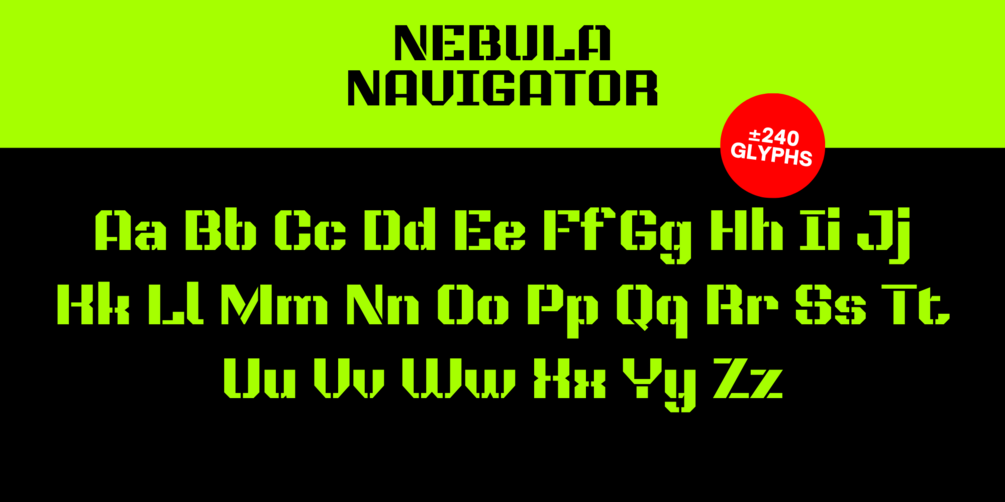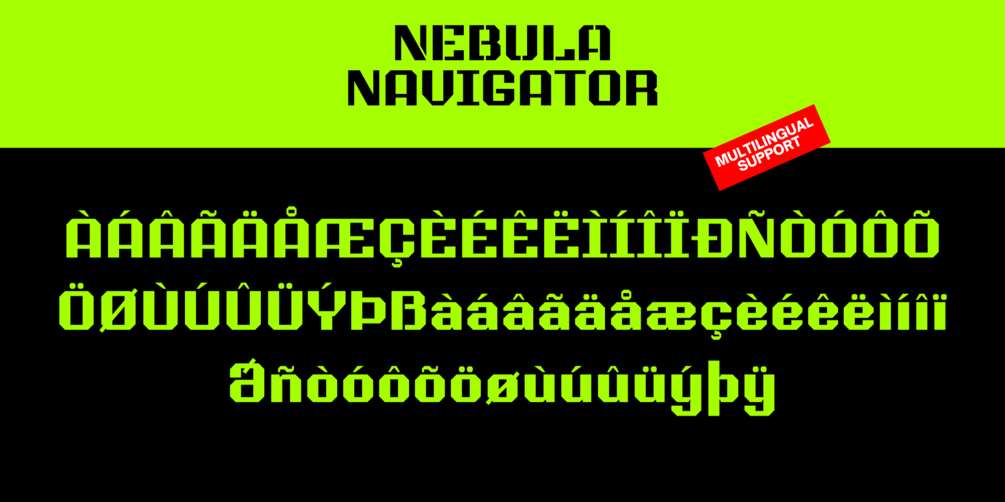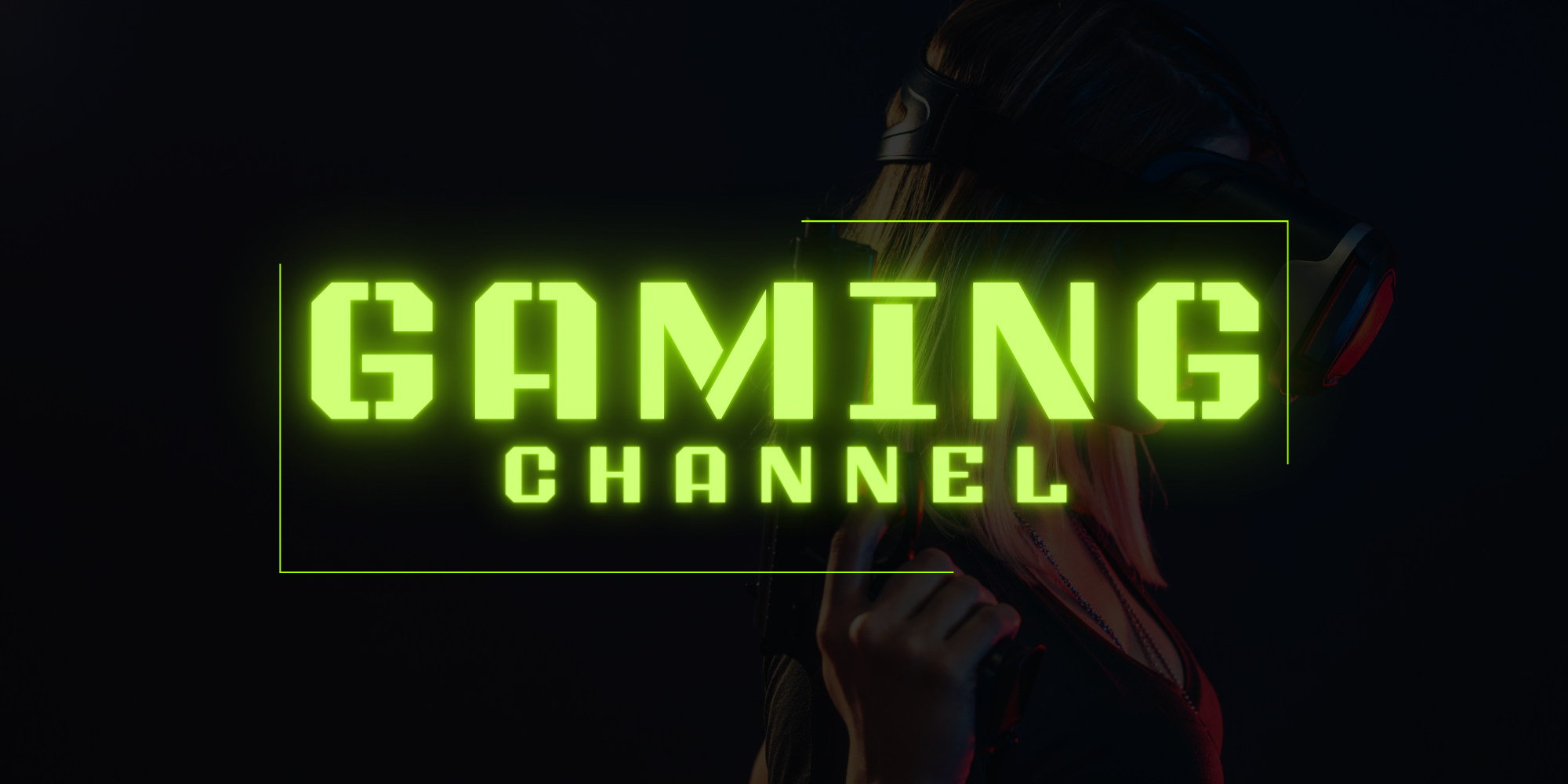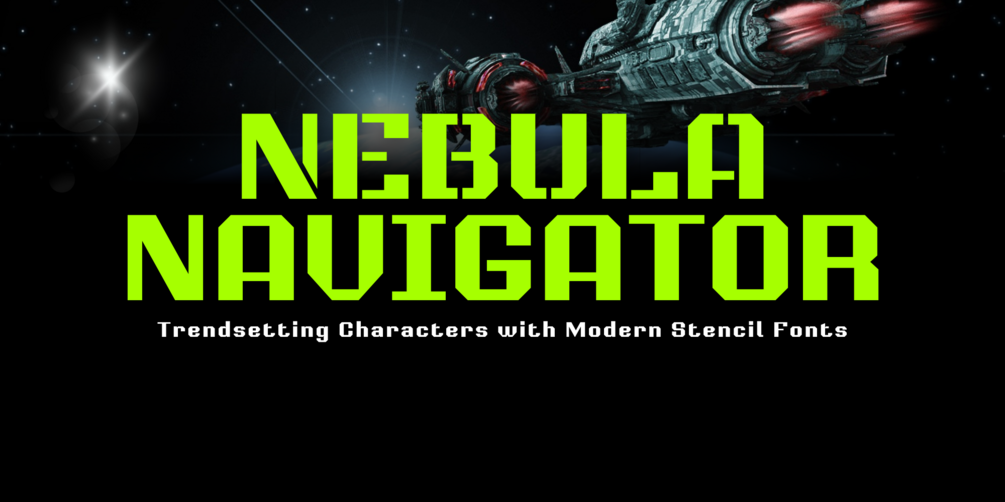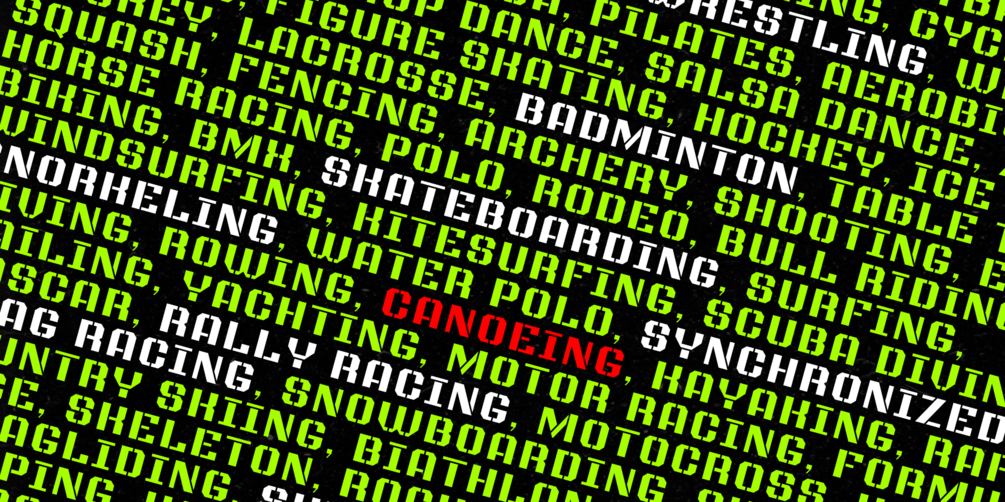
Nebula Navigator
About Nebula Navigator Font
Nebula Navigator – A Versatile Futuristic Font
• 🚀 Crafted for the modern design era, with bold, striking character.
• 🔠 2 distinctive styles: Clean Regular and edgy Stencil.
• 🌌 Perfect for:
• Futuristic tech posters
• Energetic sports branding
• Stunning space-themed visuals
• 🔡 Complete uppercase & lowercase letters, great for both headlines and body text.
• 🧠 Includes 244 advanced glyphs:
• Unicode characters (Á, Ä, etc.)
• OpenType features (alternates, small caps, ligatures…)
• ✨ See all character variations in one place — organized and accessible.
• 🤝 Ligature support for smoother, more elegant letter combinations.
• 📏 Precision kerning ensures consistent, polished letter spacing.
• 🎯 A perfect pick for designers seeking something unique, adaptable, and futuristic.